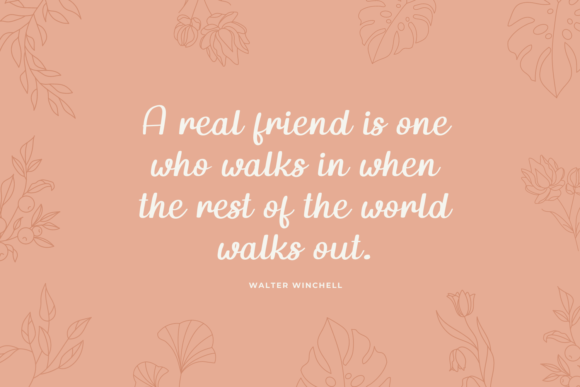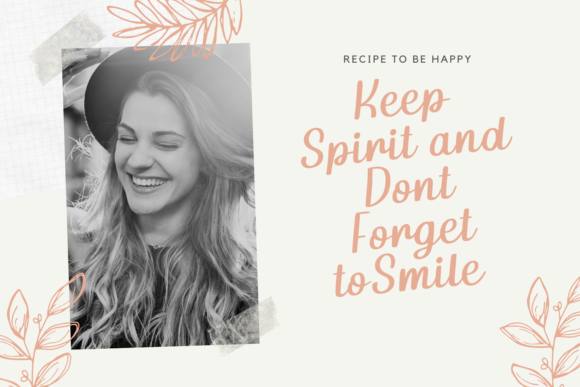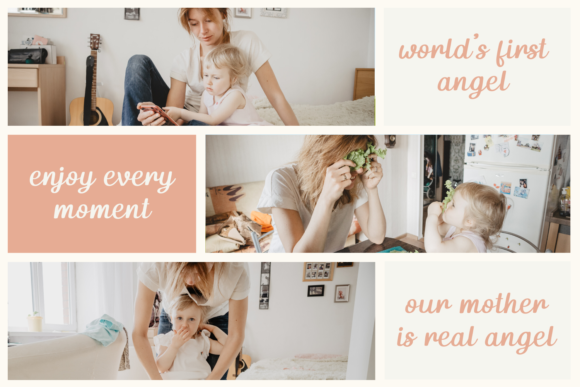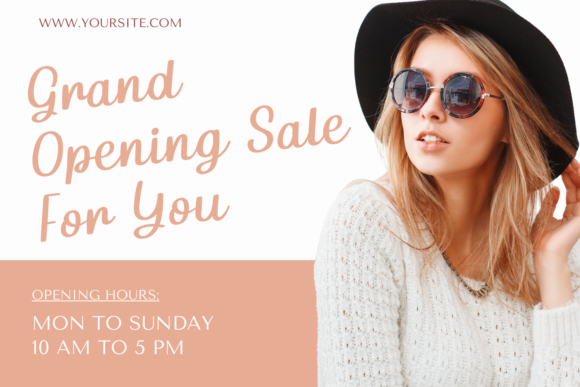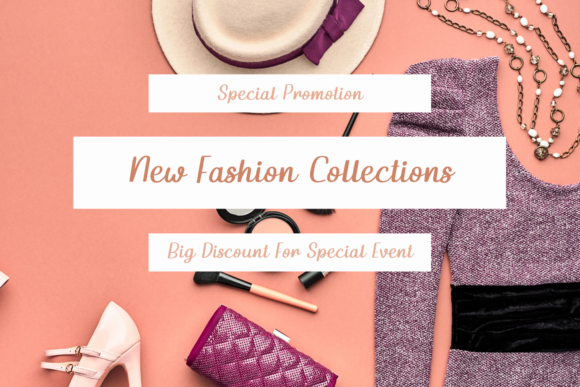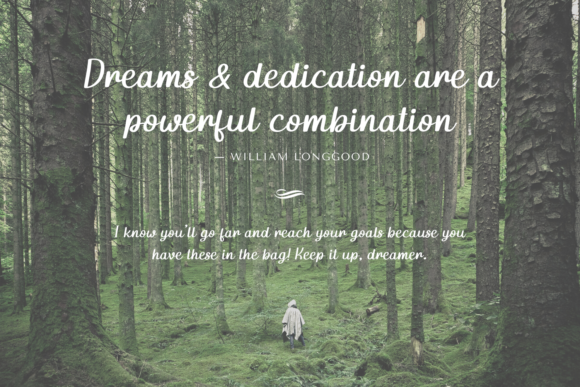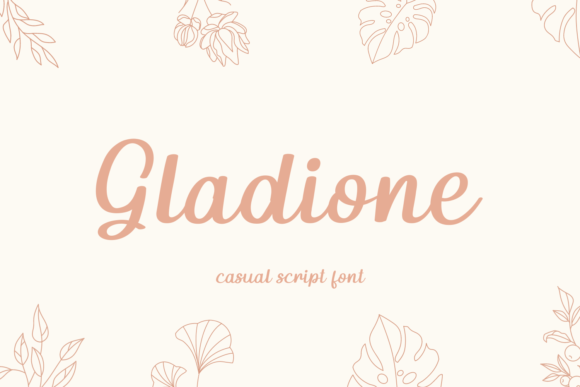
Introducing Gladione Font: The Sweet and Friendly Handwritten Script Font
Are you tired of using the same old fonts for your design projects? Look no further! Gladione Font is a beautiful, sweet, and friendly handwritten script font that’s perfect for adding a personal touch to your quotes, casual projects, and more. In this article, we’ll dive into the world of Gladione Font and explore its features, benefits, and uses.
A Font that’s Perfect for Quotes and Casual Projects
Gladione Font is a carefully crafted font that’s designed to make your text stand out. Its sweet and friendly tone makes it perfect for quotes, sayings, and phrases that need a personal touch. Whether you’re creating a motivational poster, a social media graphic, or a handmade craft, Gladione Font is the perfect choice.
One of the best things about Gladione Font is its versatility. It can be used in a variety of contexts, from busy backgrounds to standalone headlines. Its unique and elegant design ensures that it will look outstanding in any situation.
Key Features of Gladione Font
- Handwritten Script Font: Gladione Font is a beautiful handwritten script font that’s perfect for adding a personal touch to your designs.
- Sweet and Friendly Tone: The font has a sweet and friendly tone that makes it perfect for quotes, sayings, and phrases.
- Perfect for Casual Projects: Gladione Font is ideal for casual projects, such as social media graphics, handmade crafts, and more.
- Versatile: The font can be used in a variety of contexts, from busy backgrounds to standalone headlines.
Benefits of Using Gladione Font
So, why should you choose Gladione Font for your design projects? Here are just a few benefits of using this amazing font:
- Adds a Personal Touch: Gladione Font adds a personal touch to your designs, making them more relatable and engaging.
- Easy to Read: The font is easy to read, even in small sizes, making it perfect for a variety of applications.
- Unique and Elegant: Gladione Font has a unique and elegant design that will make your text stand out.
- Time-Saving: With Gladione Font, you can create beautiful designs in no time, saving you time and effort.
Uses of Gladione Font
Gladione Font is a versatile font that can be used in a variety of contexts. Here are just a few ideas to get you started:
- Quotes and Sayings: Use Gladione Font to create beautiful quotes and sayings for social media, posters, and more.
- Social Media Graphics: Create eye-catching social media graphics with Gladione Font.
- Handmade Crafts: Use Gladione Font to add a personal touch to your handmade crafts, such as cards, gift tags, and more.
- Posters and Flyers: Create stunning posters and flyers with Gladione Font.
| Font Name | Gladione Font |
| Author | josgandos |
In conclusion, Gladione Font is a beautiful, sweet, and friendly handwritten script font that’s perfect for adding a personal touch to your design projects. Its versatility, unique design, and ease of use make it a must-have font for designers and crafters. Whether you’re creating quotes, social media graphics, or handmade crafts, Gladione Font is the perfect choice. So, what are you waiting for? Get creative with Gladione Font today!